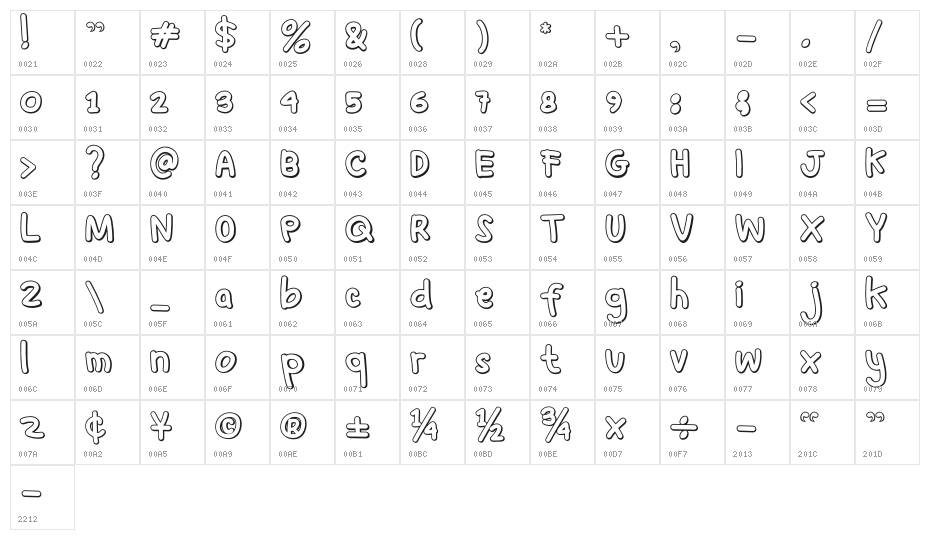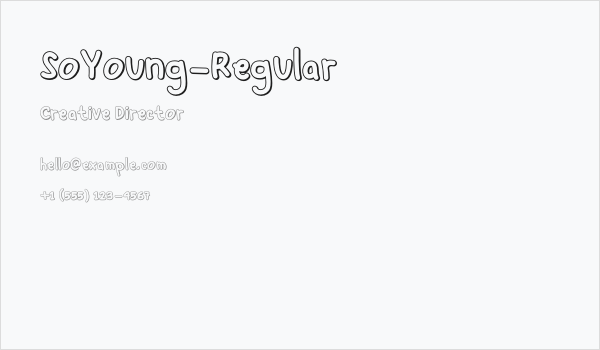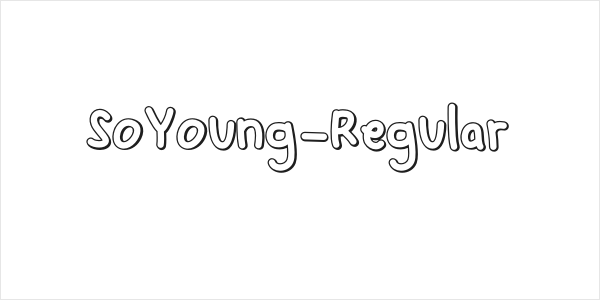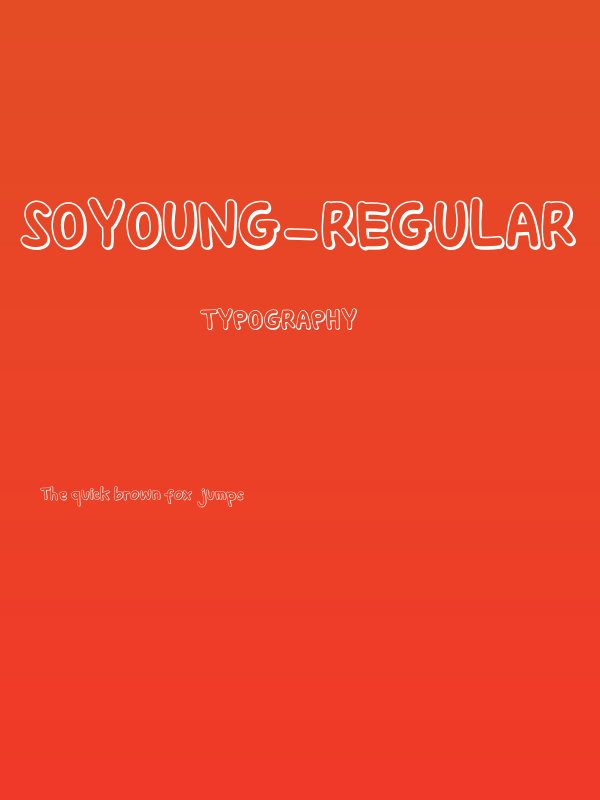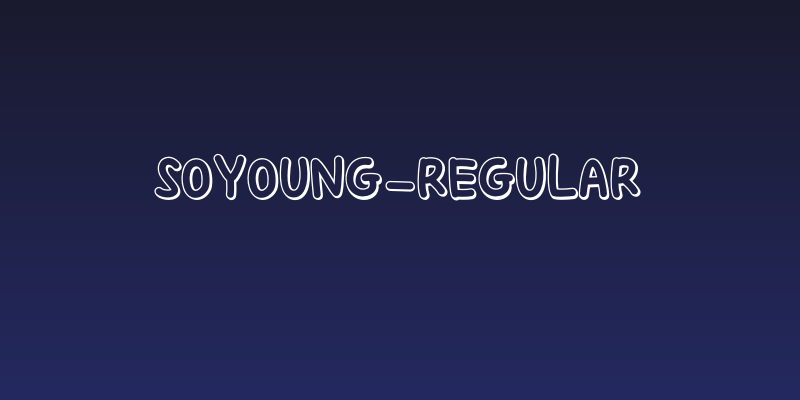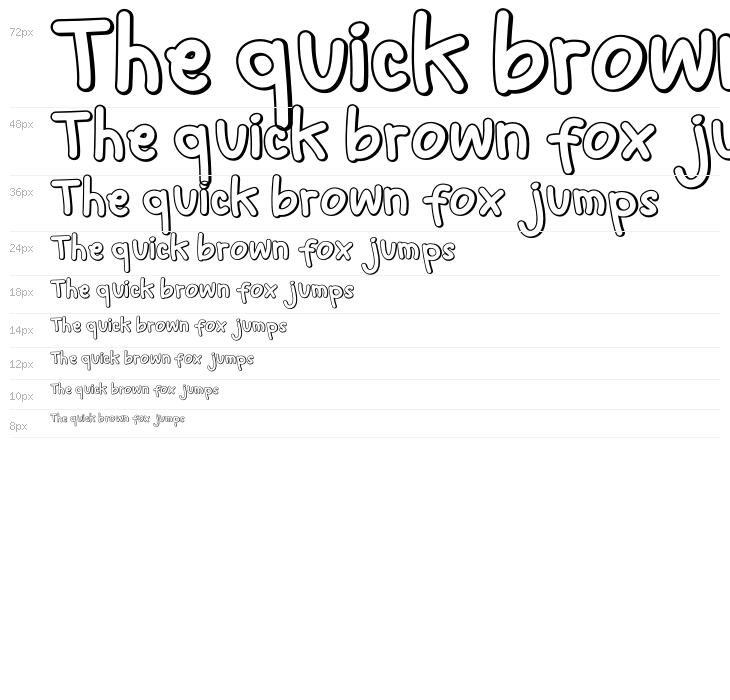
SoYoung-Regular Font
SoYoung-Regular Description
This playful and bold font features a hand-drawn, outlined style that gives it a whimsical and friendly appearance. The characters are rounded with a consistent thickness, creating a cohesive look across both uppercase and lowercase letters. The numbers and special characters maintain this playful aesthetic, making the font versatile for various creative applications. Its casual and approachable design is perfect for projects that aim to convey a sense of fun and lightheartedness. The font's unique outline style adds an extra layer of visual interest, making it stand out in any design.